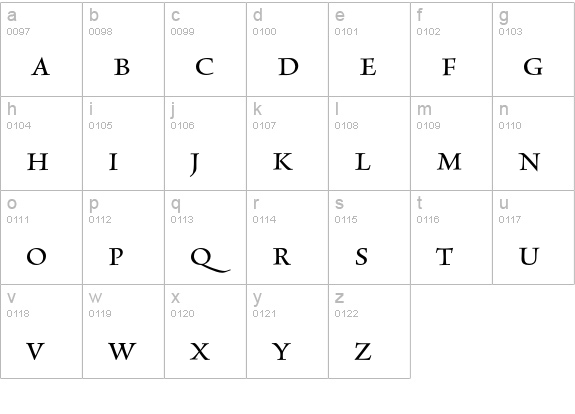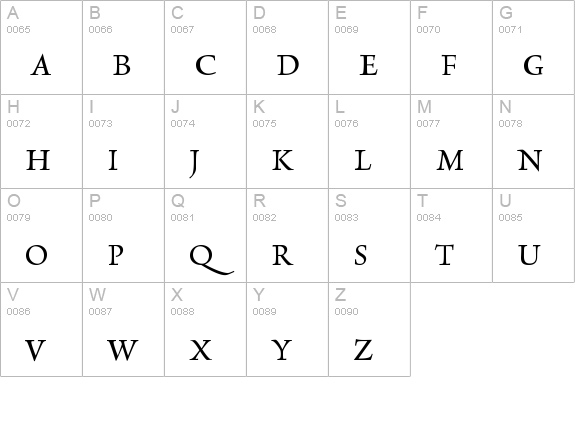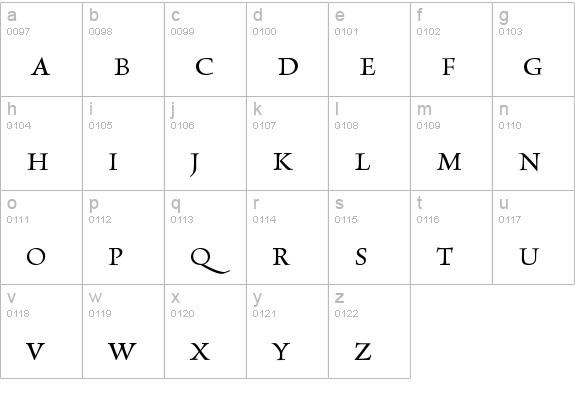
RialtoDF-PiccoloCaps Font Details
RialtoDF-PiccoloCaps is an exquisite font that captivates with its delicate and elegant design. With its petite and gracefully curved letterforms, this font exudes a sense of sophistication and refinement. The PiccoloCaps variant of RialtoDF-PiccoloCaps adds a unique touch to any project, as it showcases uppercase letters that are slightly smaller in size, creating a harmonious balance between elegance and subtlety. This font is perfect for conveying a sense of timeless beauty and class, making it ideal for various design projects such as wedding invitations, high-end branding, and luxury packaging. What makes RialtoDF-PiccoloCaps even more appealing is that it is available as a free download at FontsMarket.com. This means that designers and creatives alike can easily access this stunning font and use it to bring their artistic visions to life, without any financial constraints. Whether you're a professional designer or simply an enthusiast looking to add a touch of sophistication to your work, RialtoDF-PiccoloCaps is the perfect choice. Its effortlessly stylish appearance, combined with its availability as a free download, makes it a valuable asset in any designer's toolkit. So go ahead and explore the beauty of RialtoDF-PiccoloCaps, freely available at FontsMarket.com.